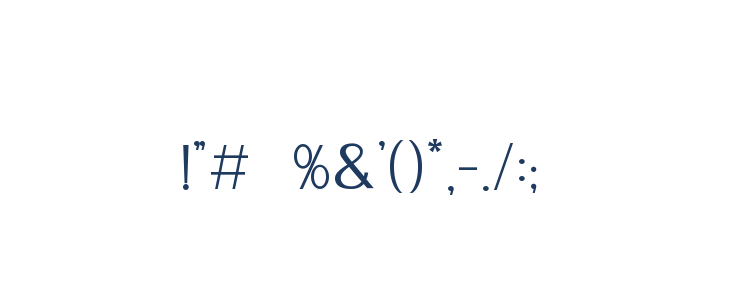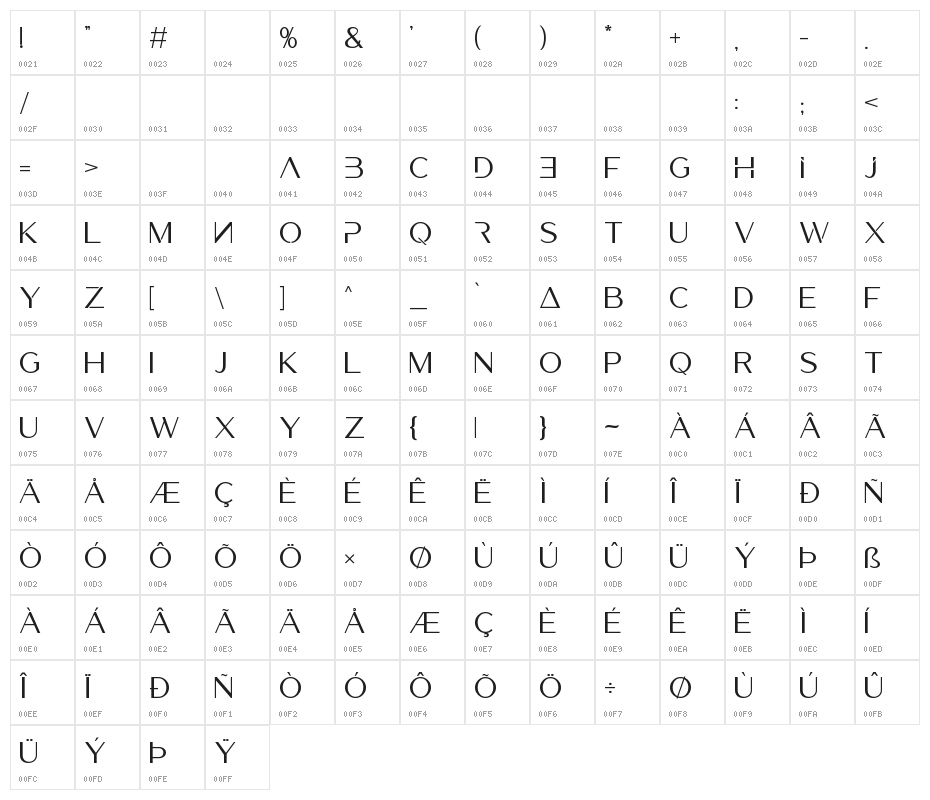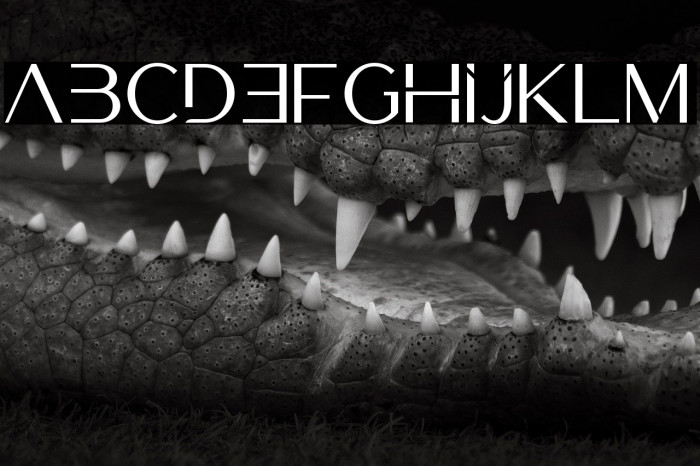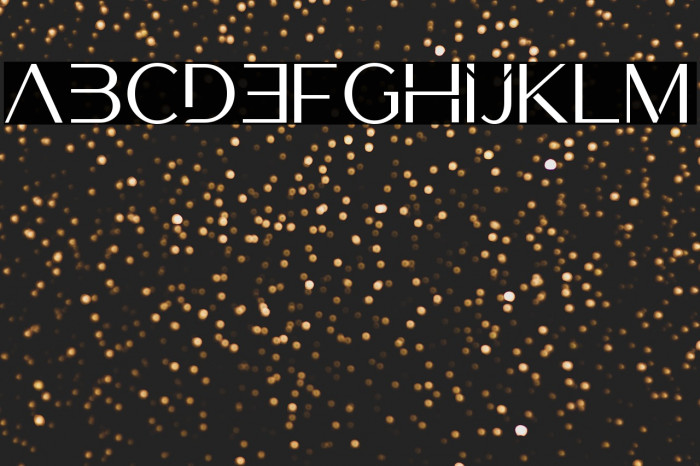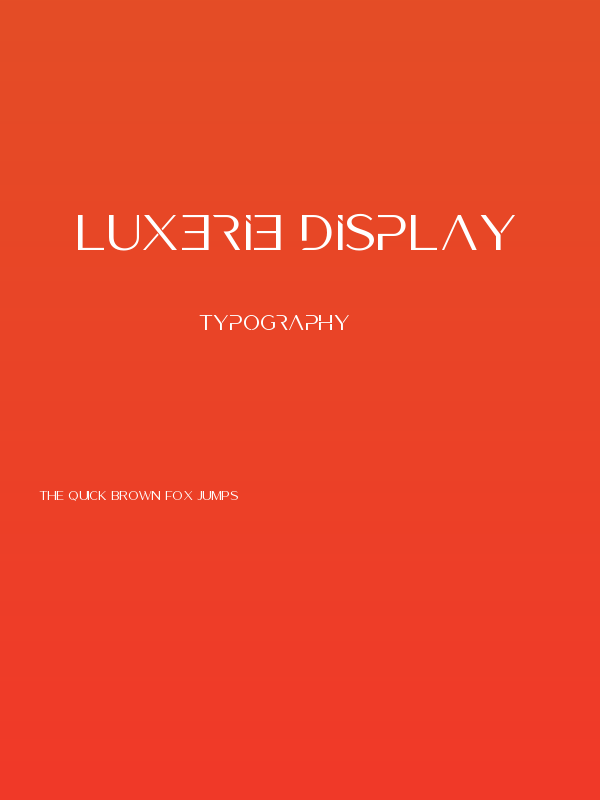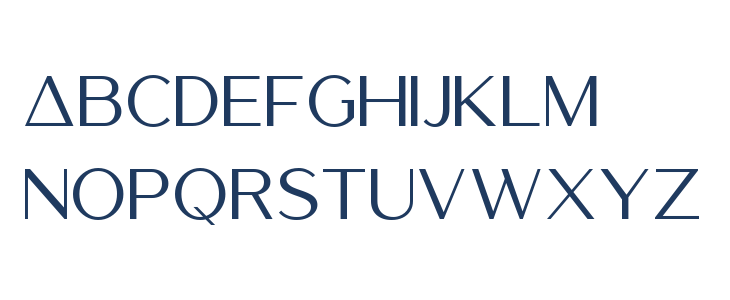
Luxerie Display Font
Luxerie Display Description
This font features a modern and geometric design with clean lines and sharp angles. The uppercase letters are distinct with a futuristic aesthetic, characterized by unique cuts and slants that give it a dynamic appearance. The lowercase letters maintain a similar style, ensuring consistency throughout the typeface. The numbers are bold and clear, making them highly legible. Special characters are designed to complement the overall style, adding to the font's versatility. This typeface is ideal for projects that require a contemporary and sophisticated look.
| Proposed Projects | Ideal for branding, advertising, and editorial design projects that require a contemporary and sophisticated look. |